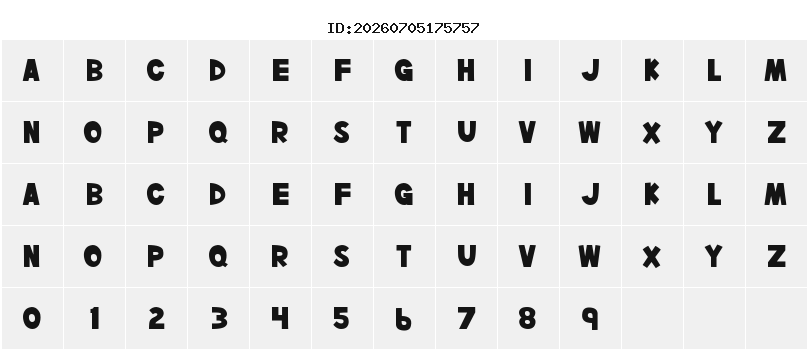
Doki Preview
• Font Name: Doki
• Full Font Name: Doki
• Version: Version 1.00 December 8, 2015, initial release
About Doki.ttf
Doki.ttf is a modern, elegant sans-serif font designed for ultimate readability and visual harmony. Perfect for branding, headlines, web design, and print materials.